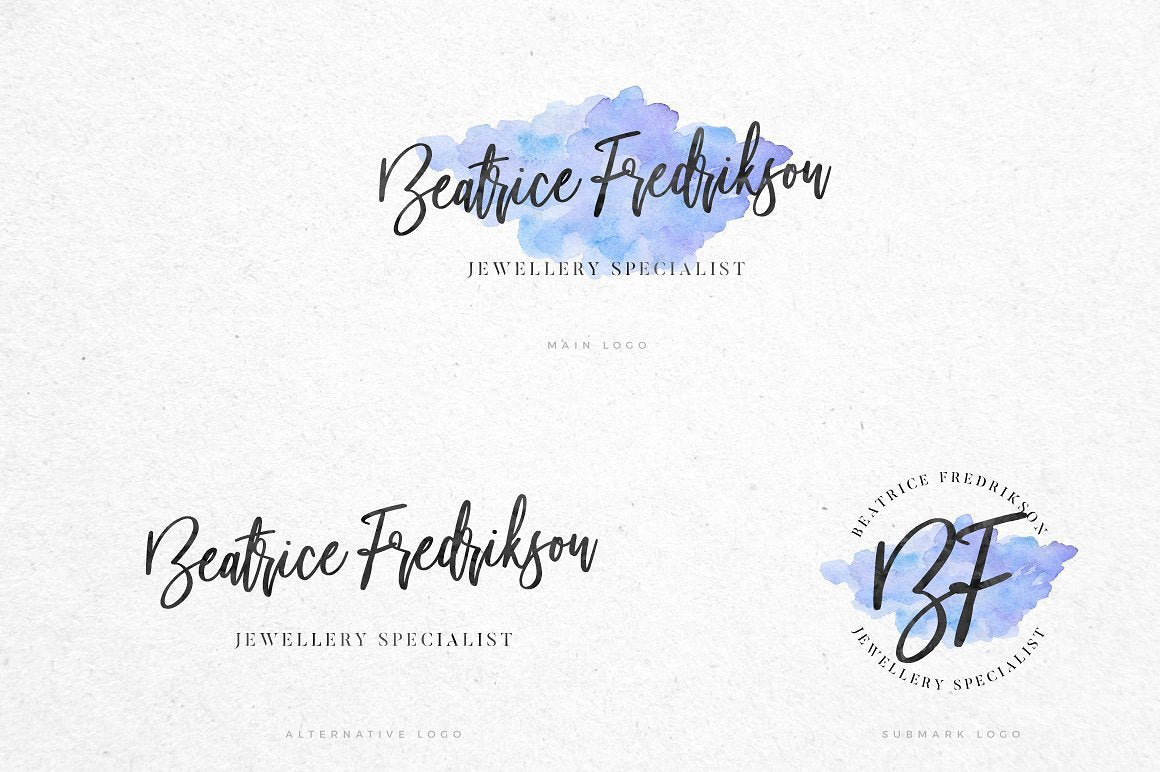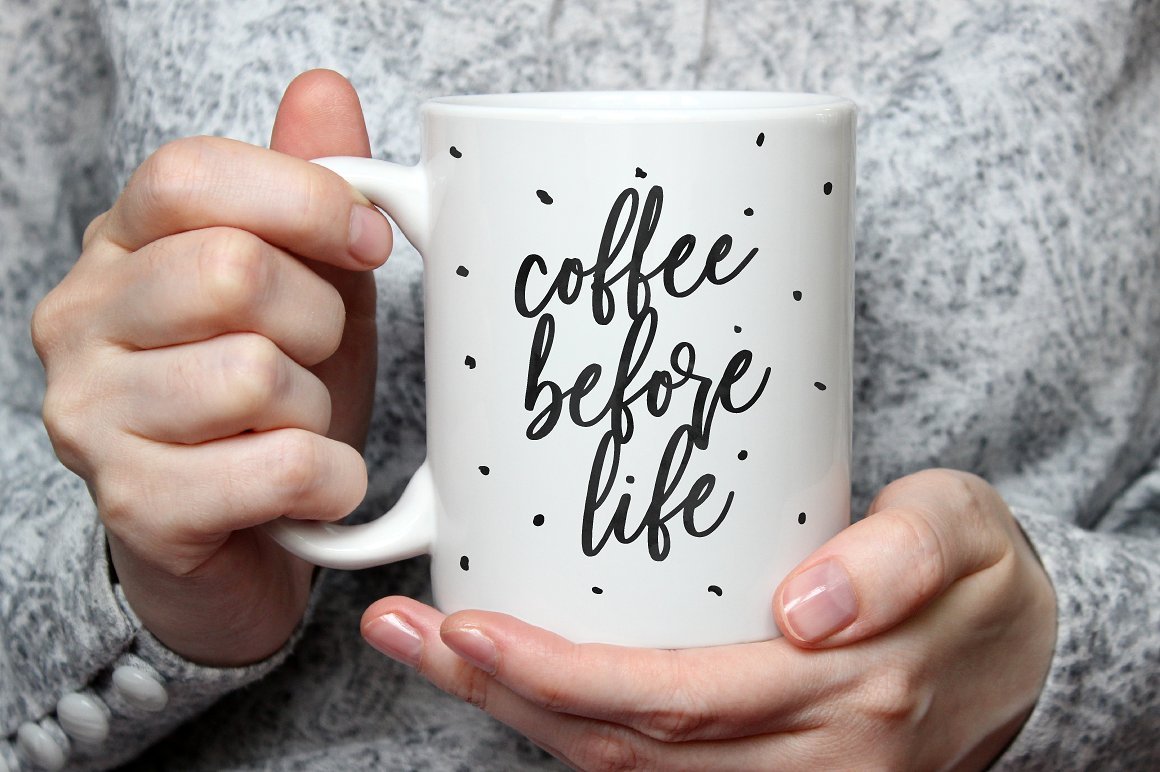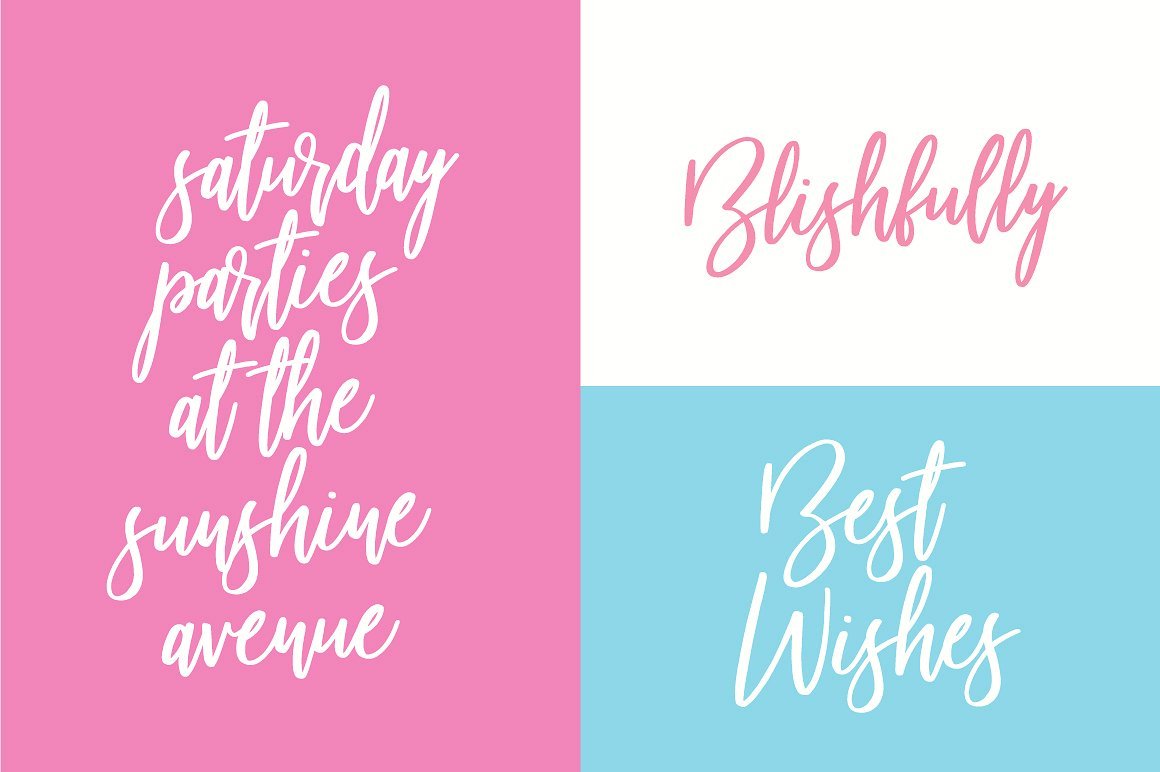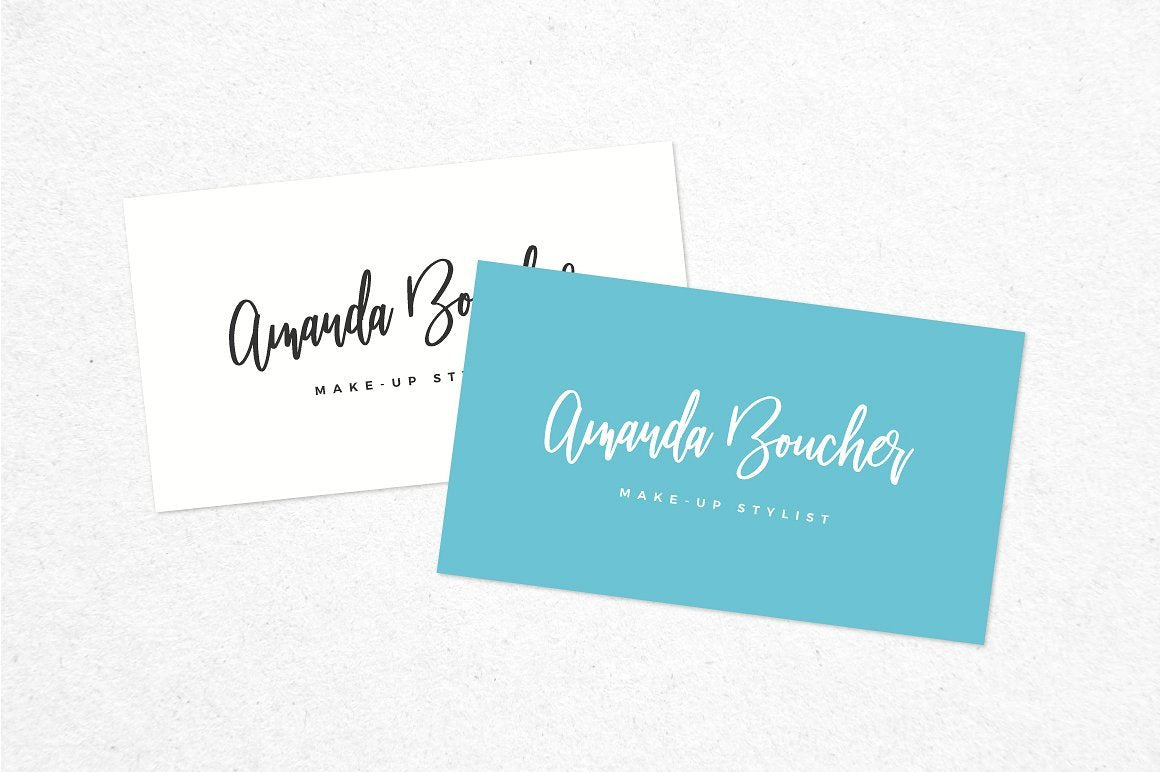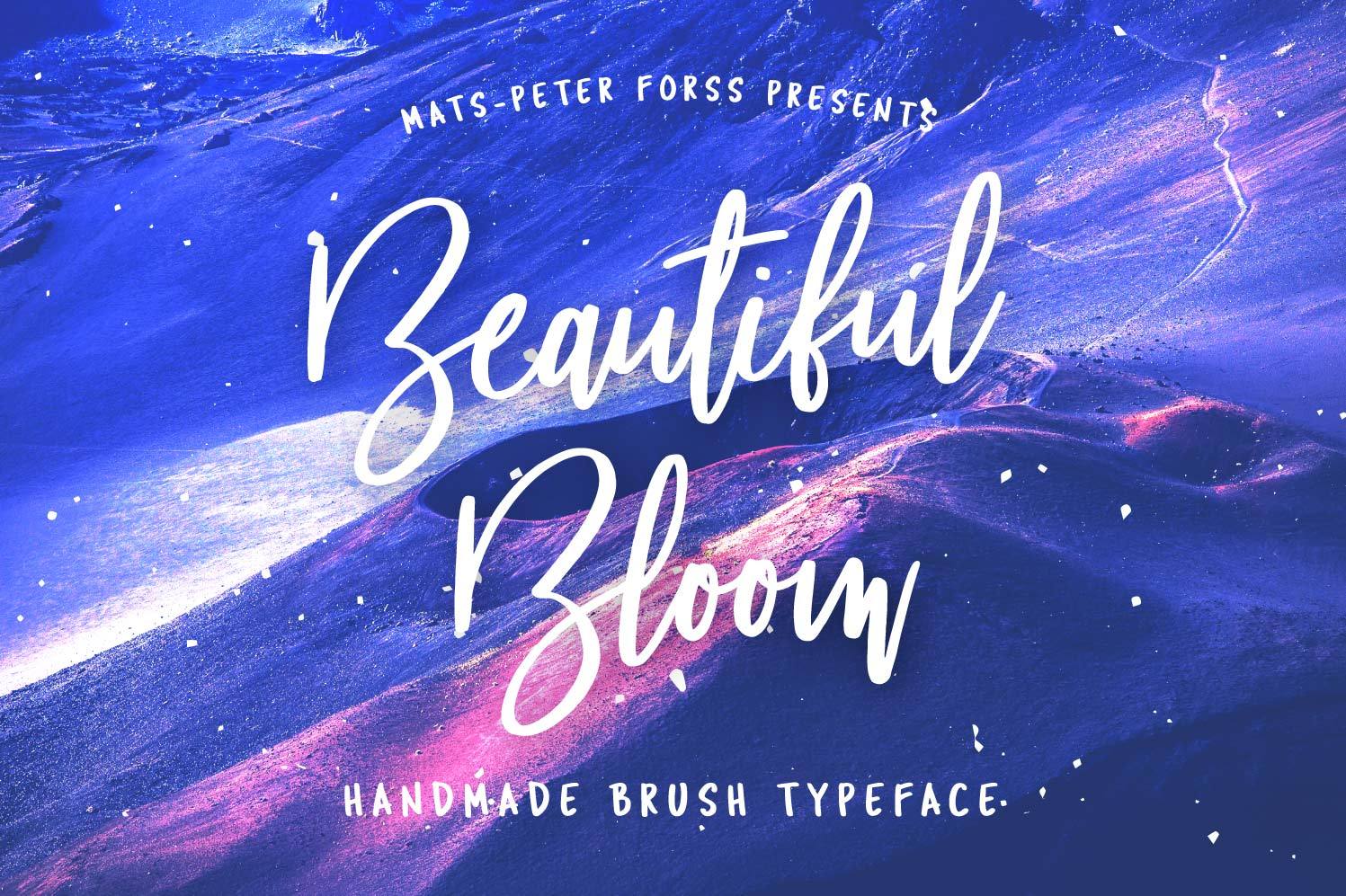
Beautiful Bloom - Free Brush Font
Introducing the new lovely Beautiful Bloom Typeface by Mats-Peter Forss. It's authentically handlettered font with full alternates (upper and lowercase). Designed to work perfectly in multiple designs like wedding invitations, website logos, Instagram posts and many many more 😊